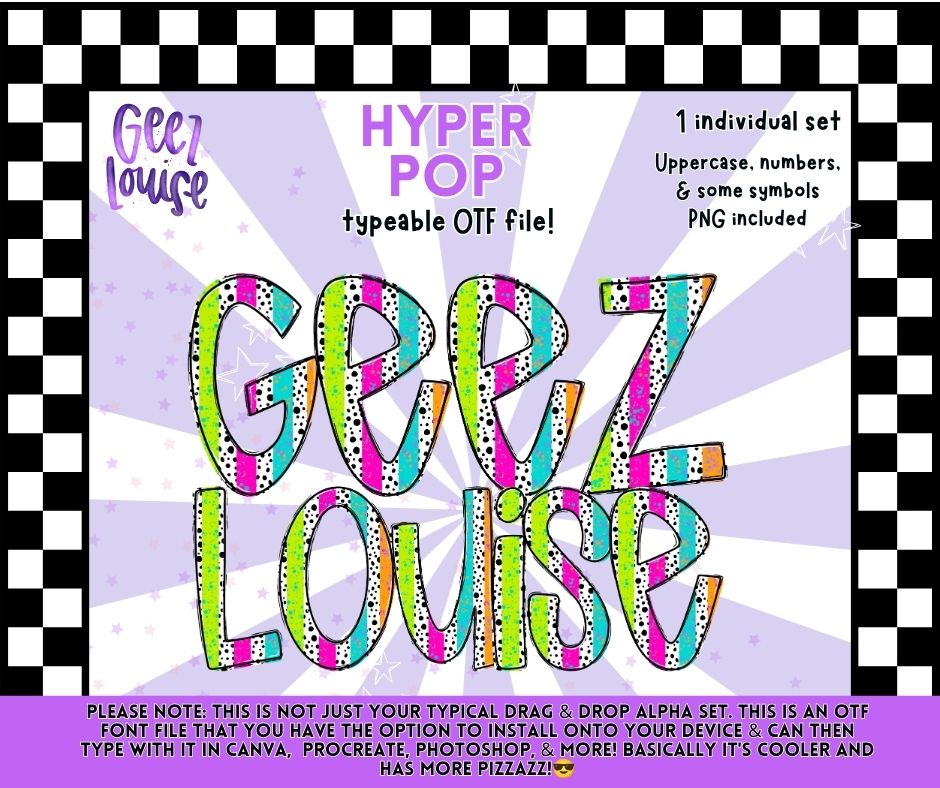
Turn up the color with the Hyper Pop OTF Font! This bold alphabet features vibrant neon stripes, playful retro dots, and includes a matching PNG alpha set.